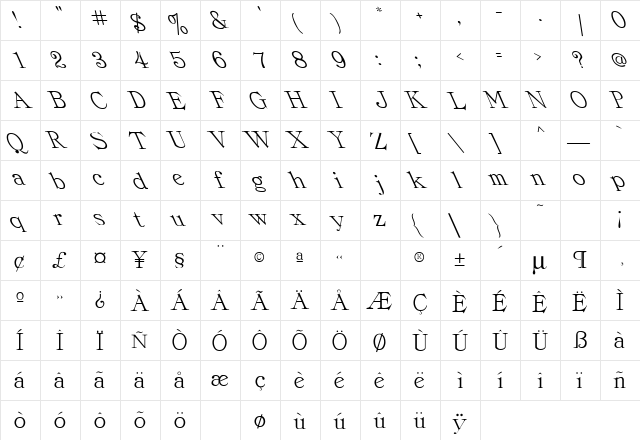
Prov Lite Lefty Regular
Design Context for Prov Lite Lefty Typeface
Prov Lite Lefty takes a measured approach to typography — its balanced proportions and neutral character make it a reliable workhorse for both digital and print work.